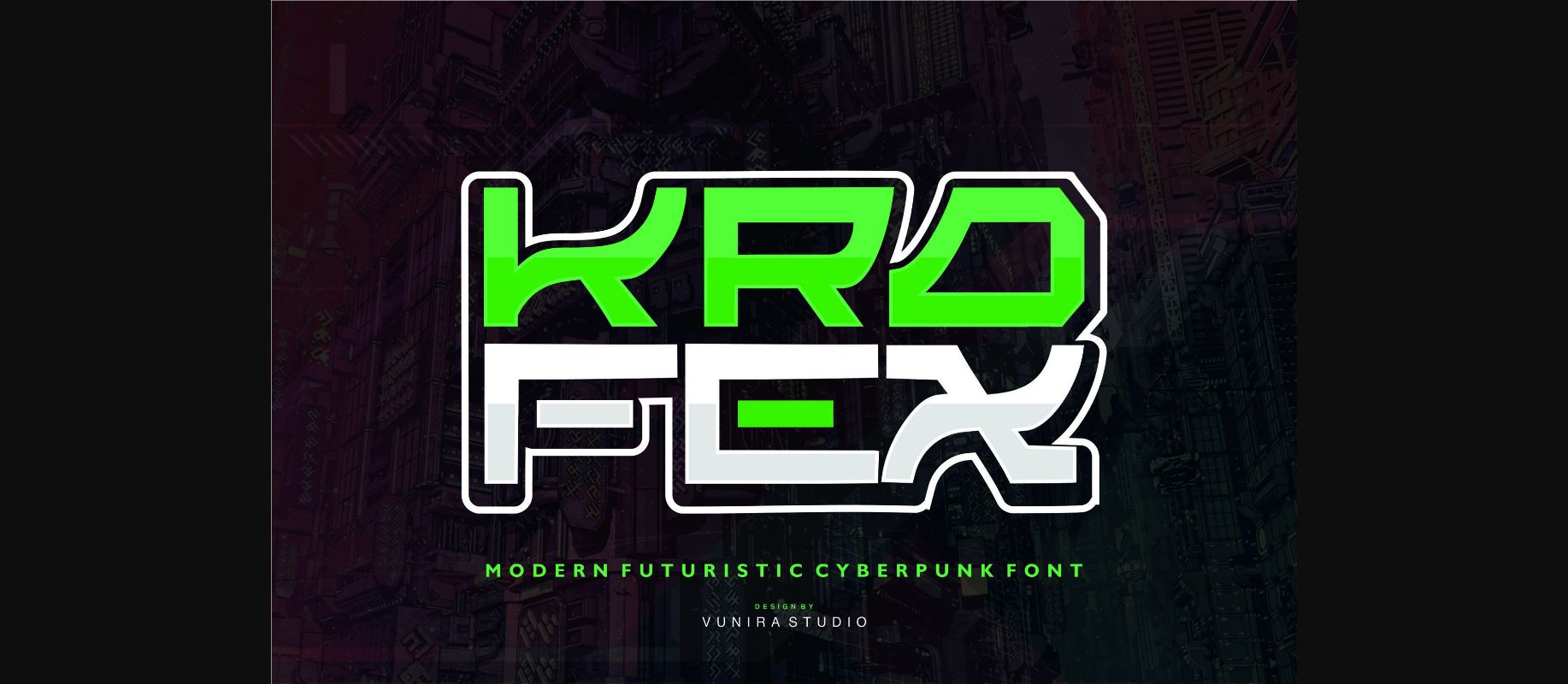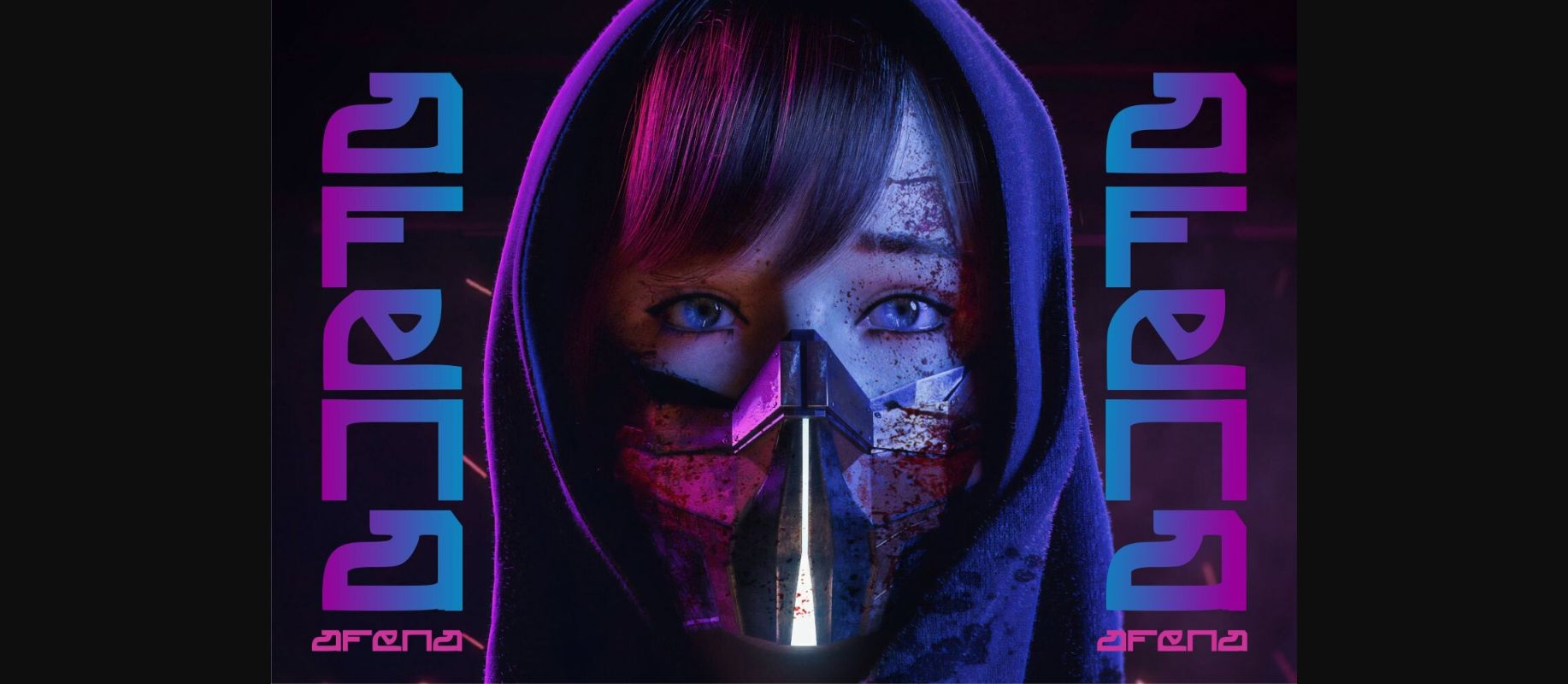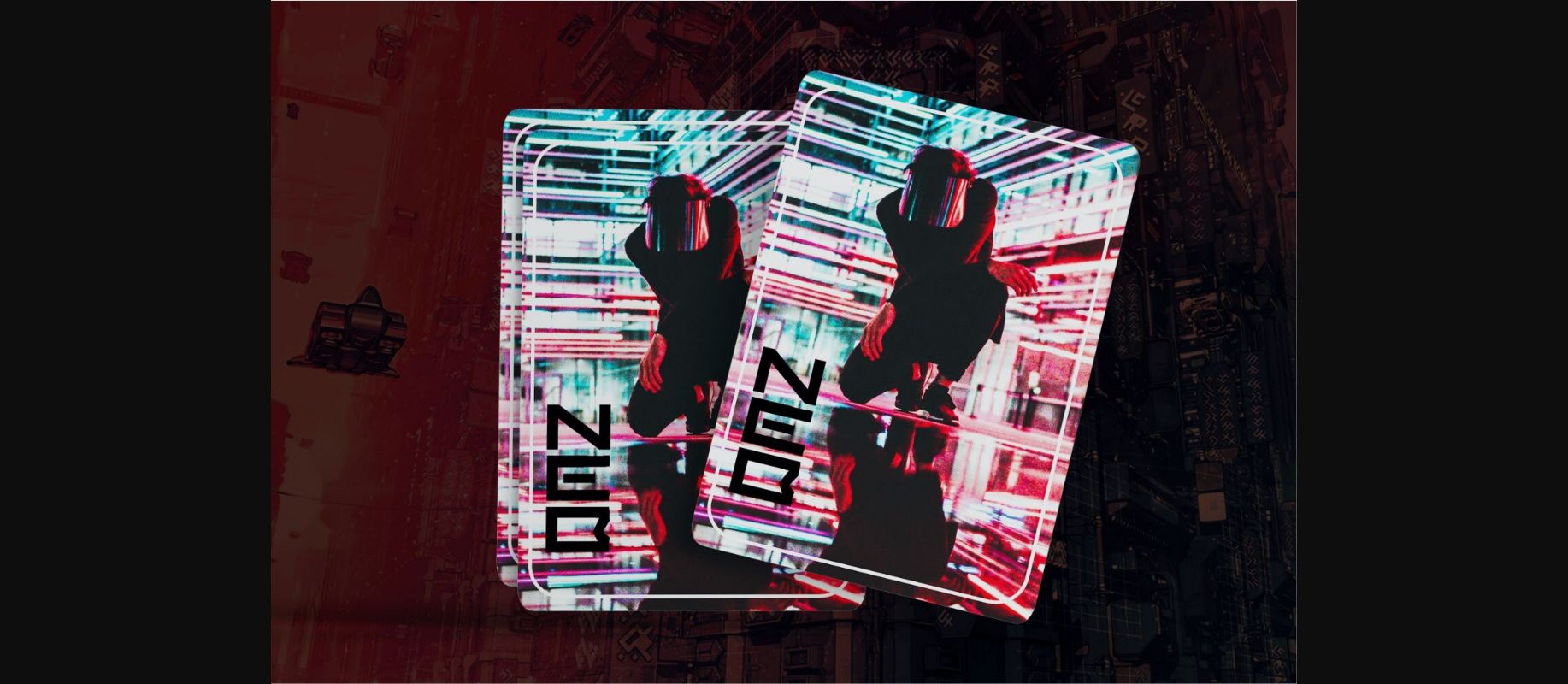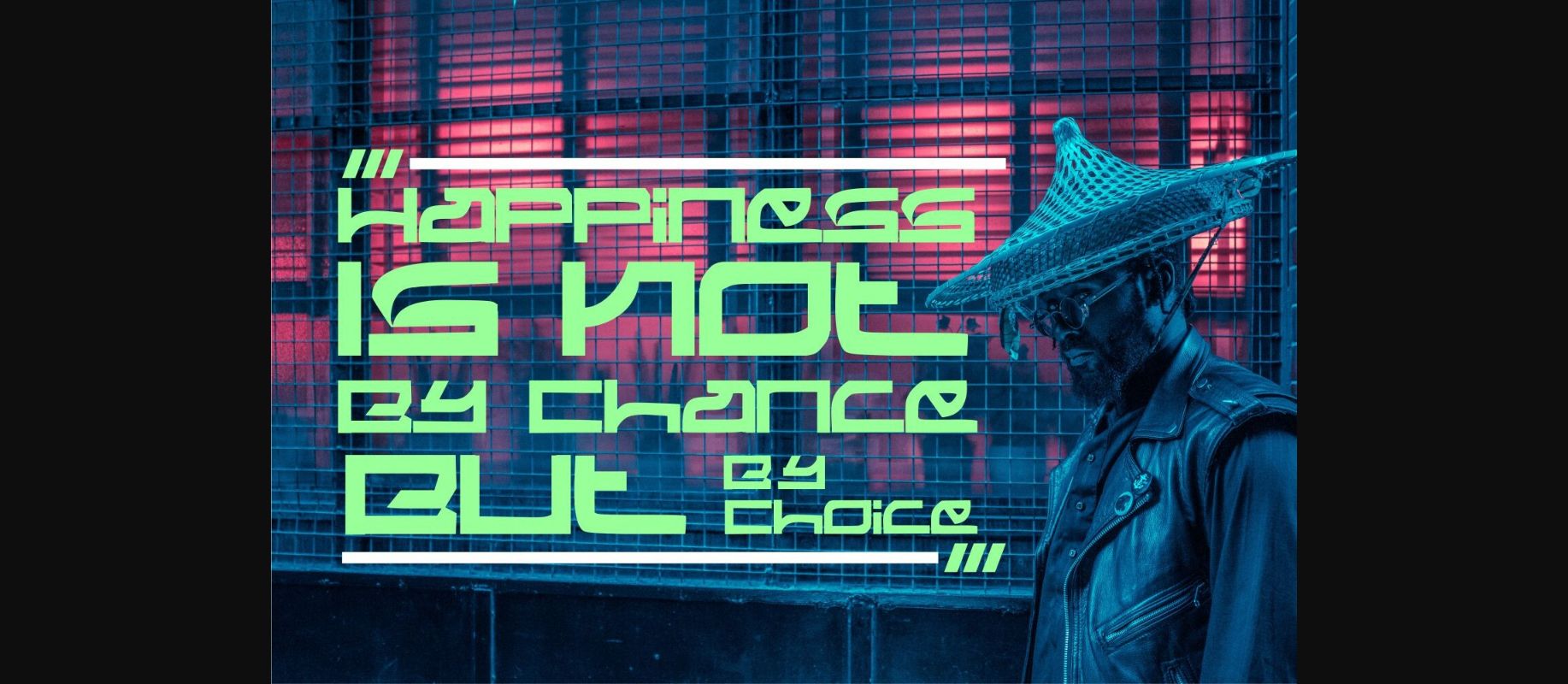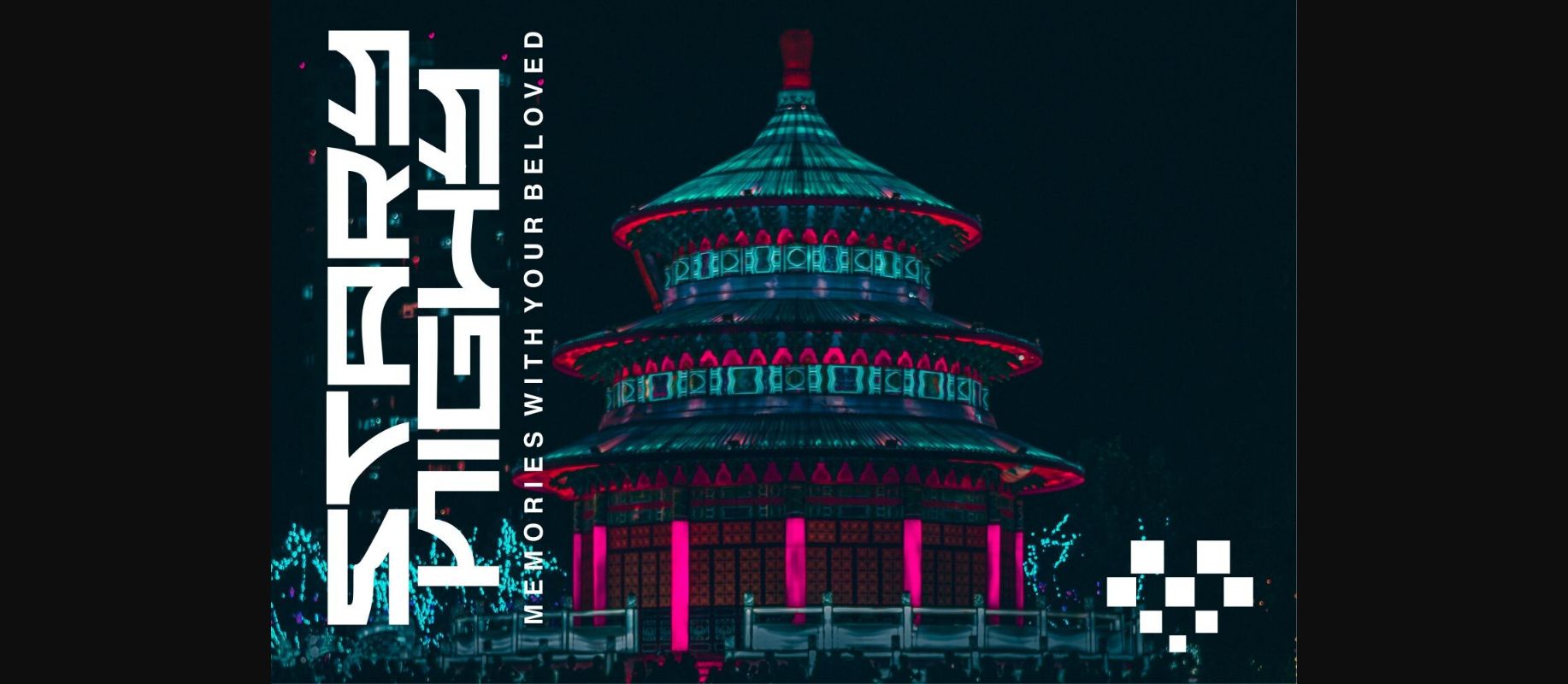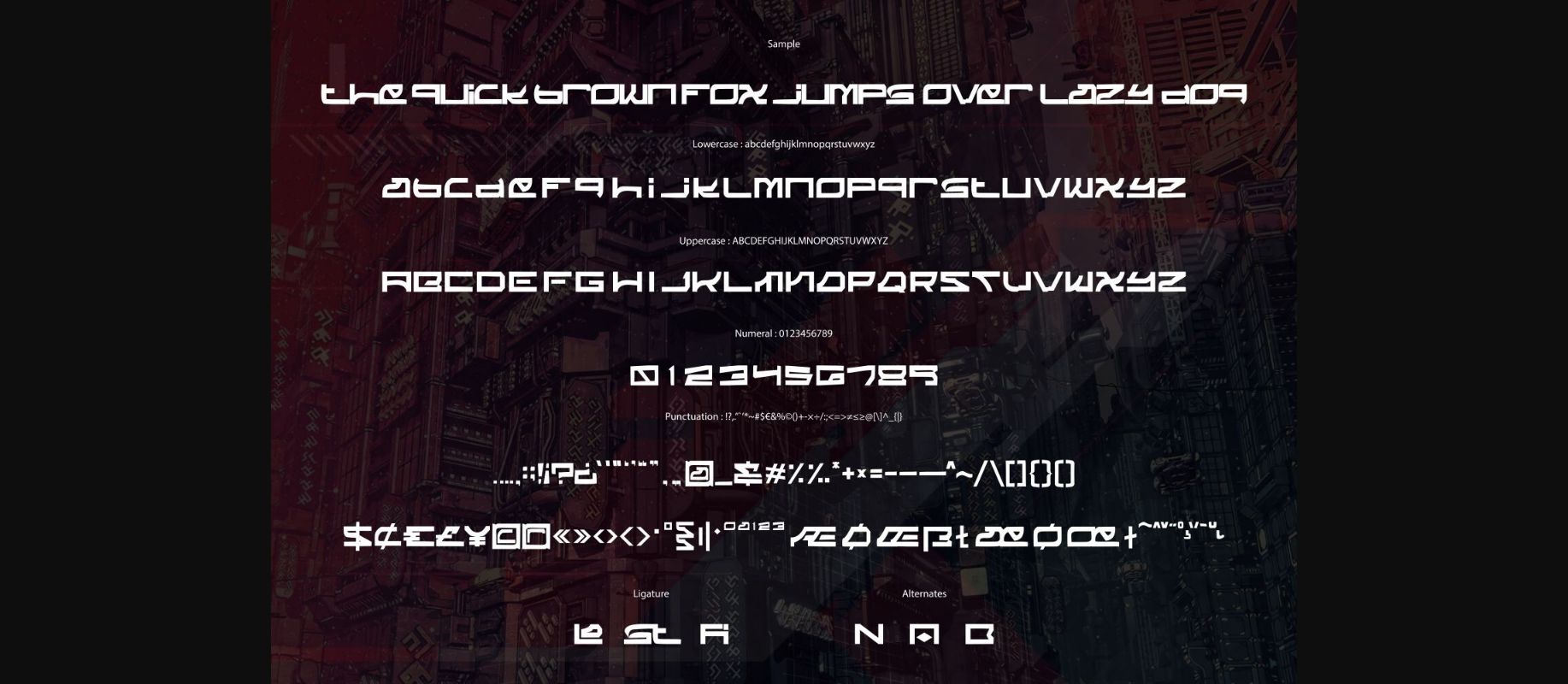
HomeDecorative FontsKrofex Font Decorative Fonts Krofex Font FacebookTwitterPinterestWhatsApp 1 of 8 ... Krofex Font Poster 2... Krofex Font Poster 3... Krofex Font Poster 4... Krofex Font Poster 5... Krofex Font Poster 6... Krofex Font Poster 7... Krofex Font Poster 8... About Krofex Font Krofex is a futuristic cyberpunk font with a calligraphy style. It is perfect for use on a variety of design projects! DOWNLOAD NOW People also explored Pavlova Font Peinbolf Font Landing Font Blazeska Font ABTS Feather Pen Nurmala Font Paola Aislinn Font Springbreak Font Cecillia Font 184 0 TagsKrofexKrofex Font Previous articleRabbit FontNext articleHayatun Font LEAVE A REPLY Cancel reply Comment: Please enter your comment! Name:* Please enter your name here Email:* You have entered an incorrect email address! Please enter your email address here Website: Save my name, email, and website in this browser for the next time I comment. Personal Use Free Dream Personal Use Free Read more about this font Makcex Personal Use Free Read more about this font Eva Personal Use Free Read more about this font Concre Personal Use Free Read more about this font BLOG Best Fonts for YouTube Videos: Make Your Thumbnails Stand Out Best Fonts for YouTube Videos: Make Your Thumbnails Stand Out Choosing the right font can make a massive difference in how your YouTube videos perform.... Where to Buy American Fonts Online in 2024 The 10 Best Handwriting Fonts to Add Personality to Your Designs Using Fonts in Digital Marketing: Tips to Strengthen Your Brand Identity